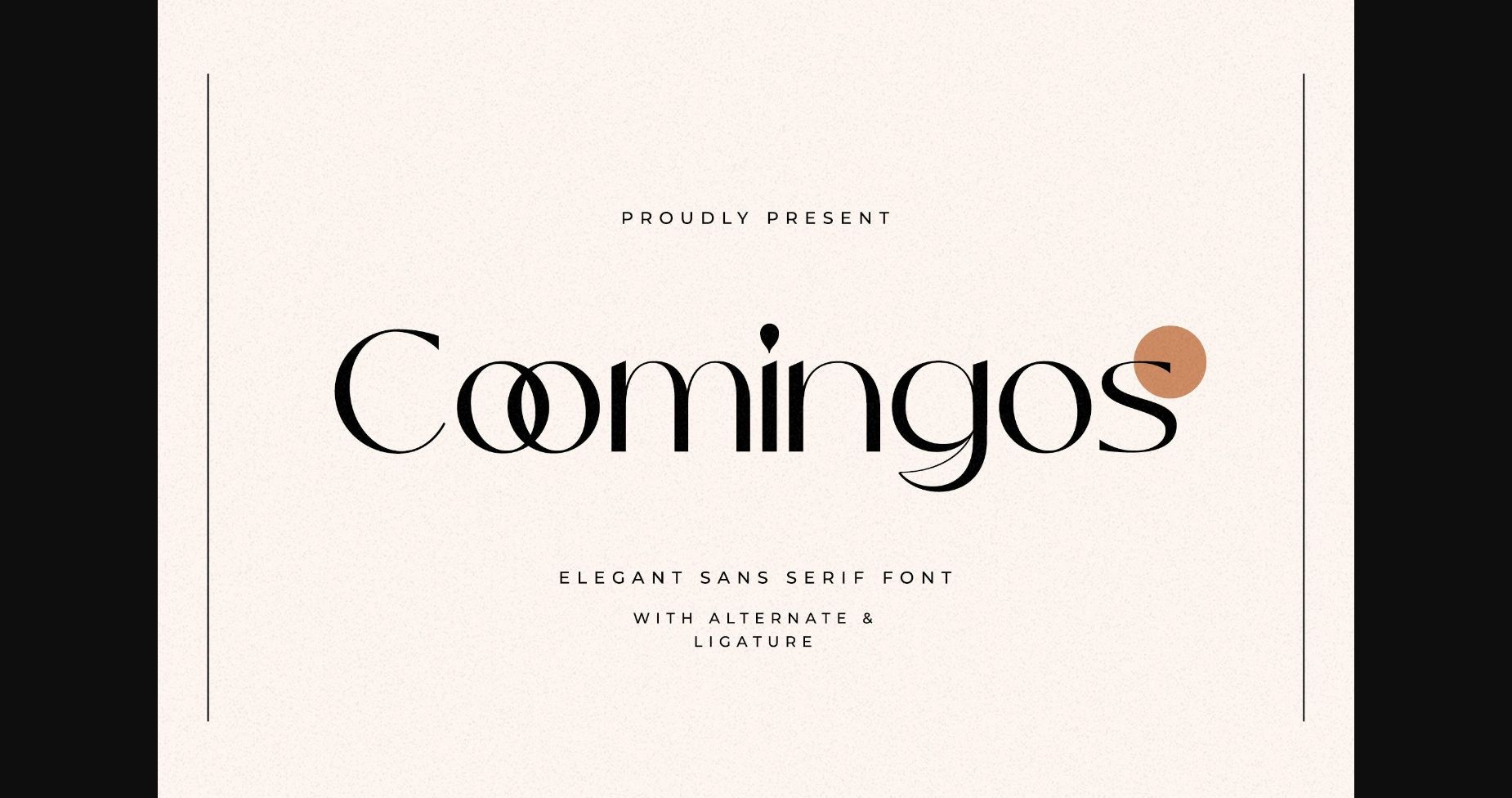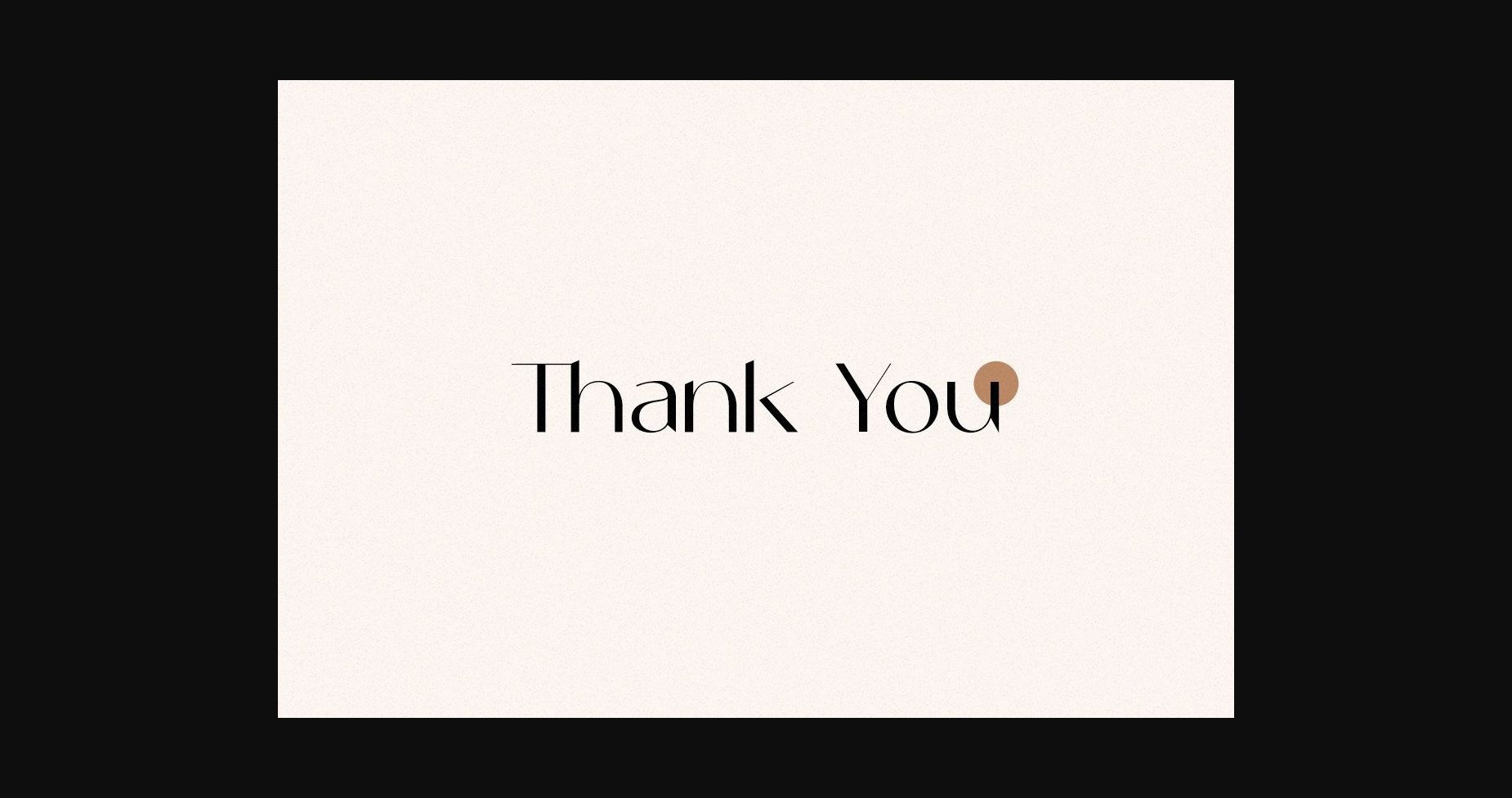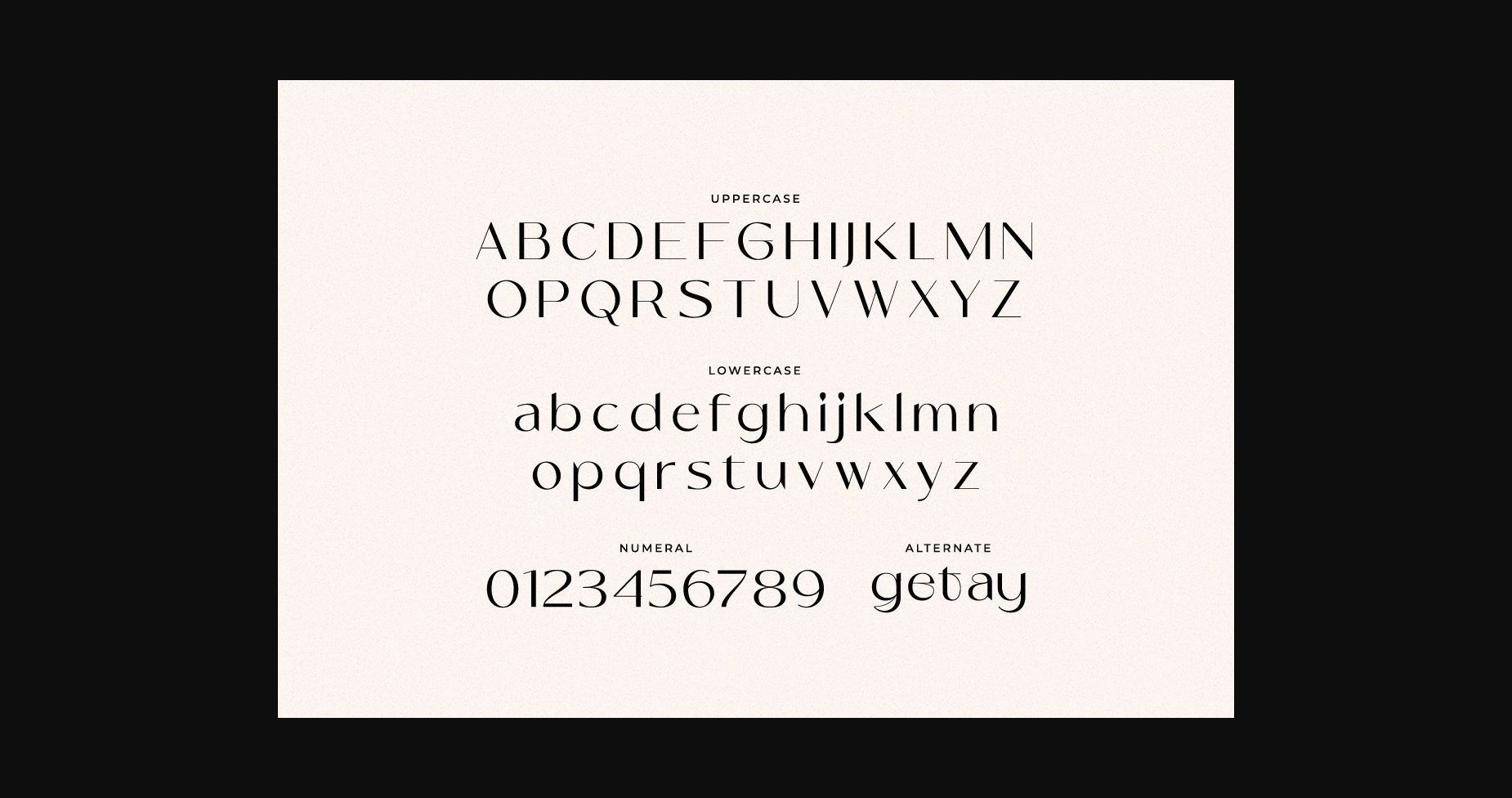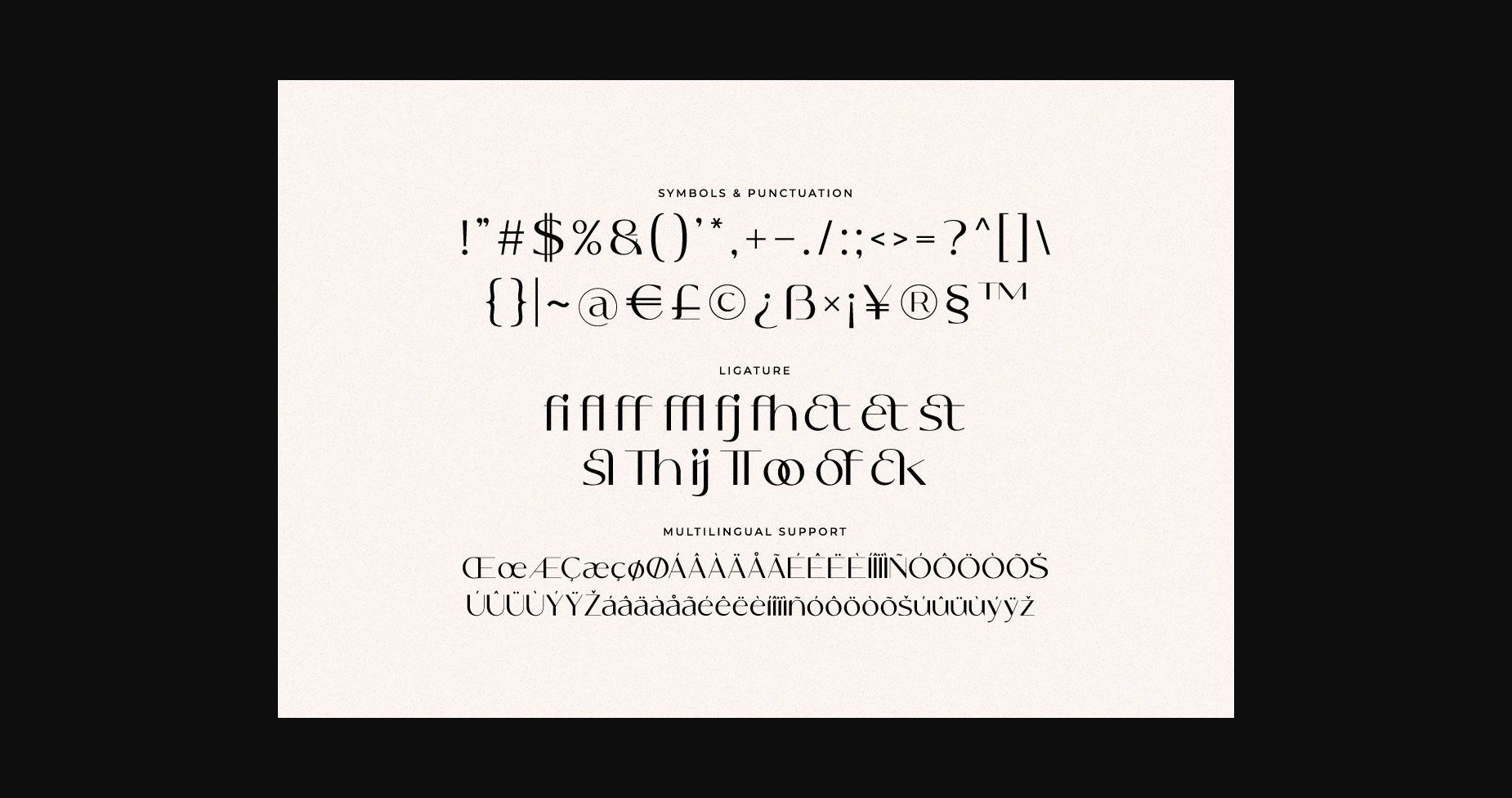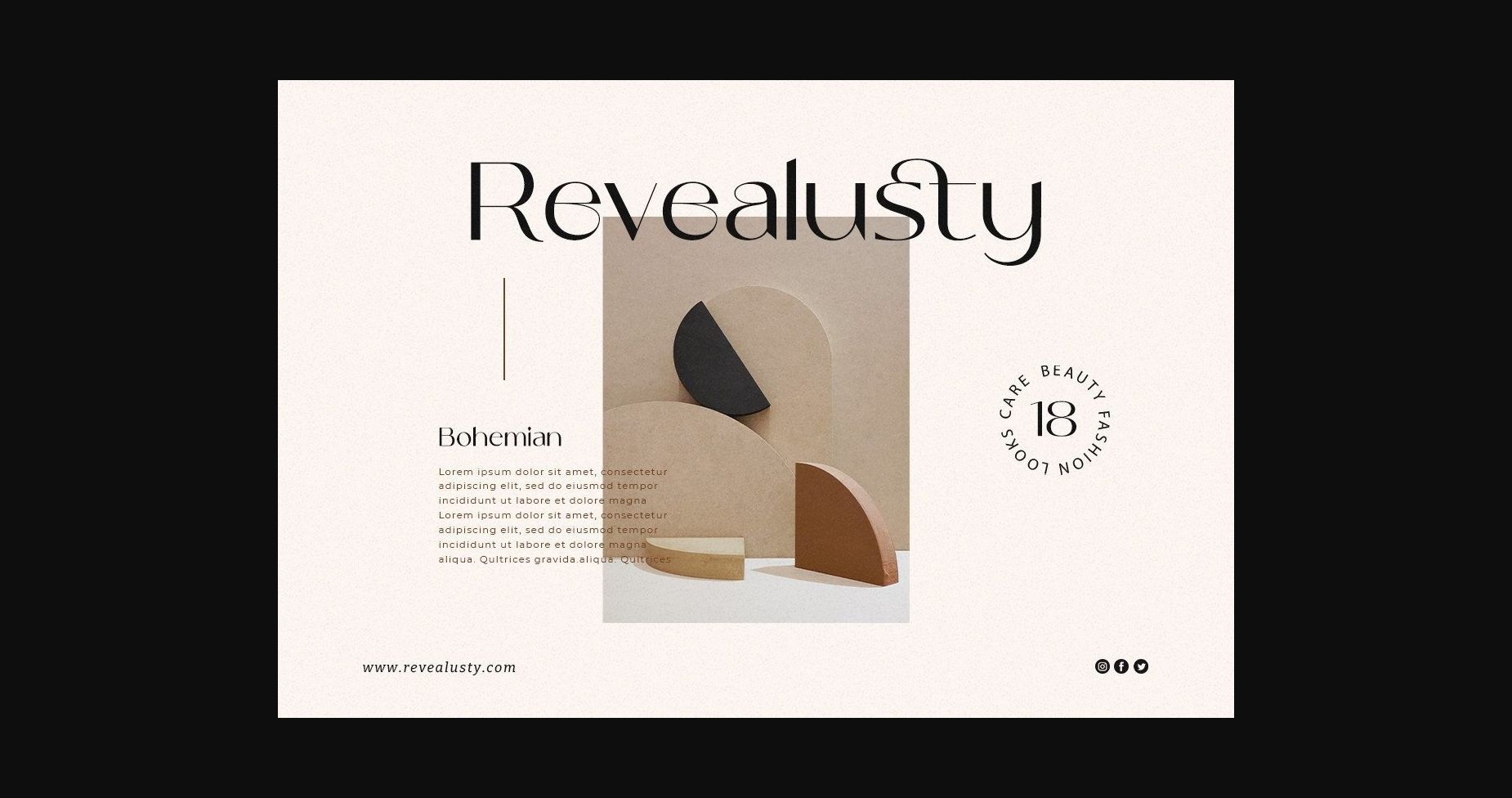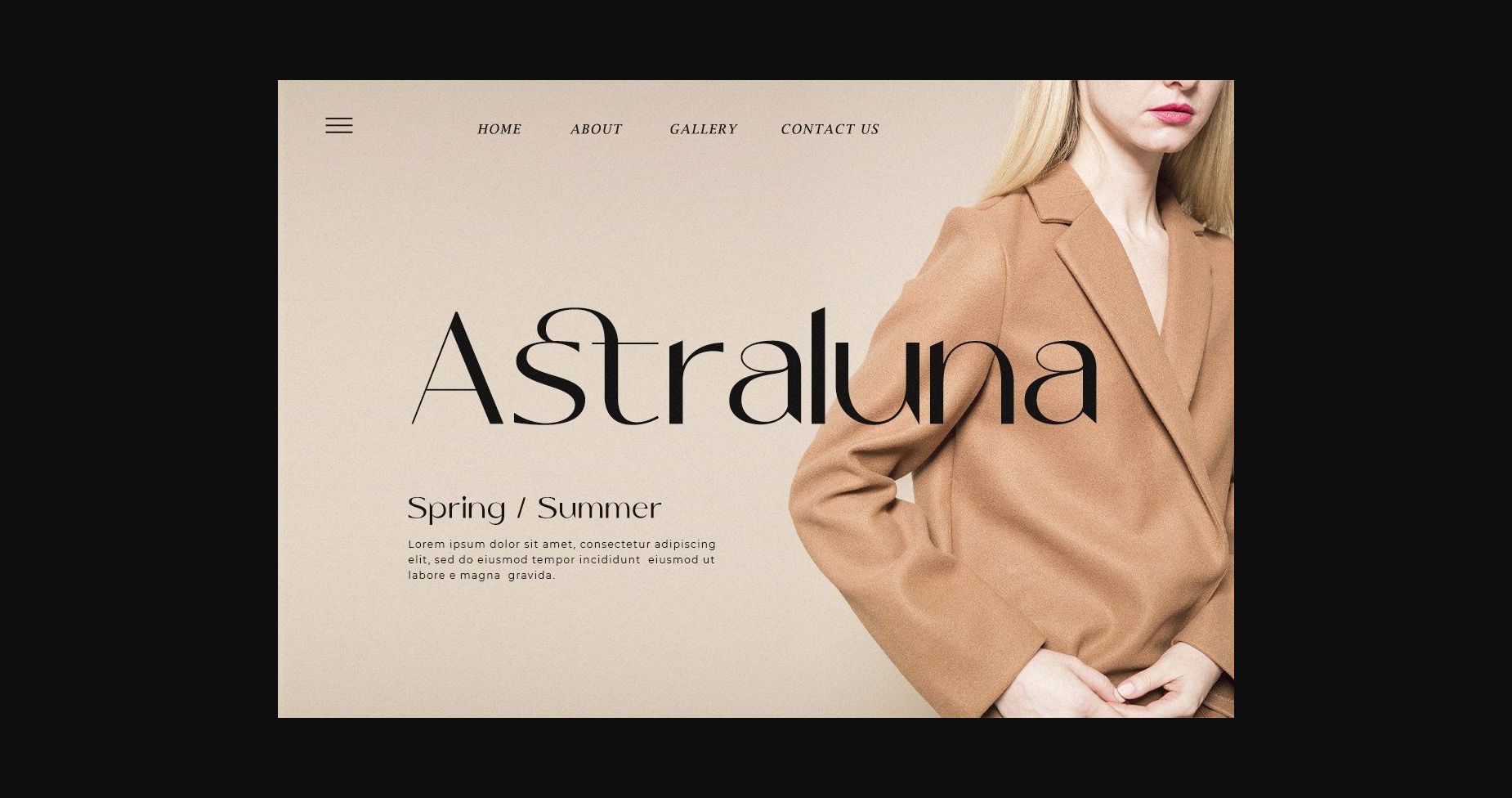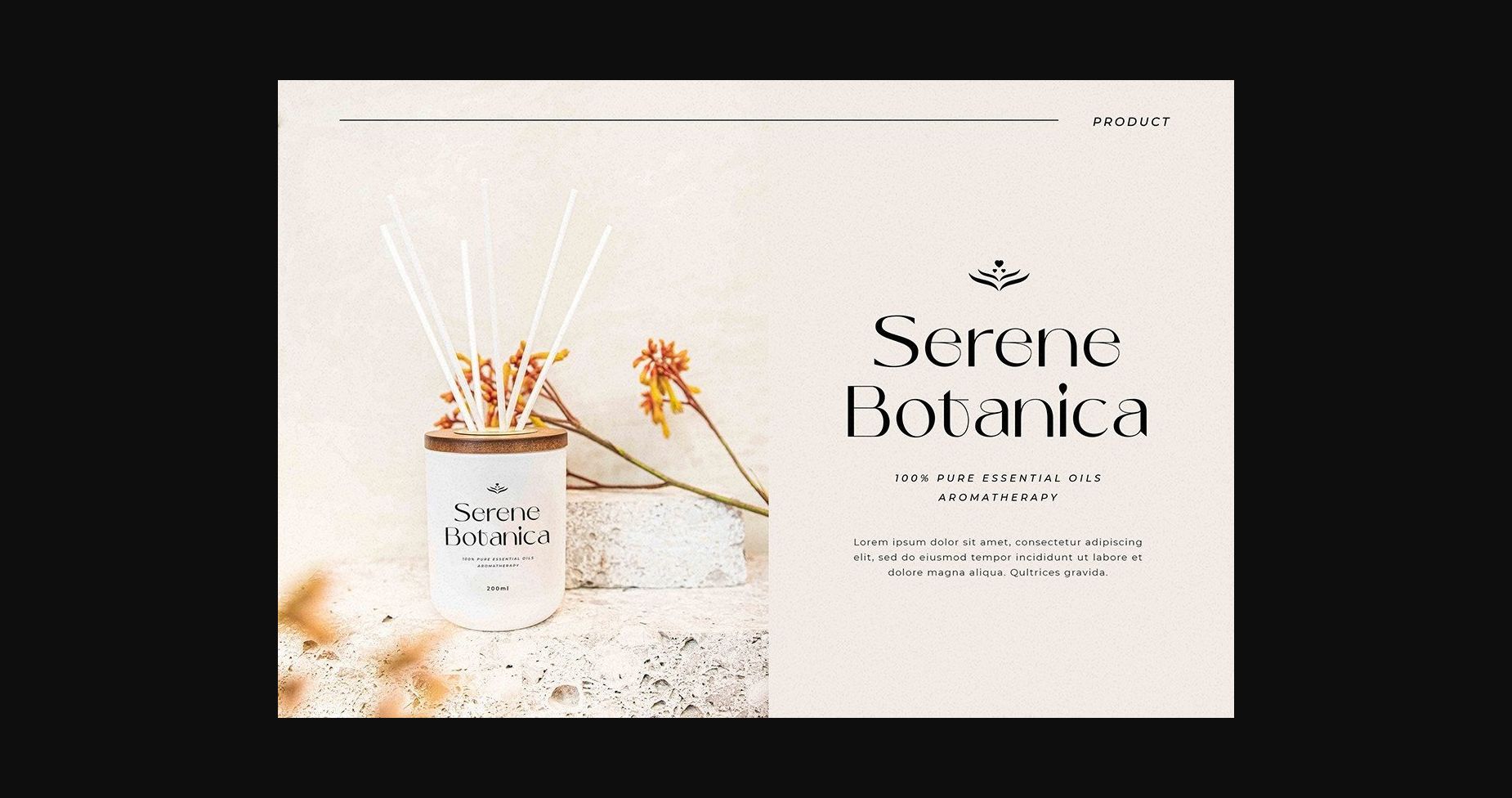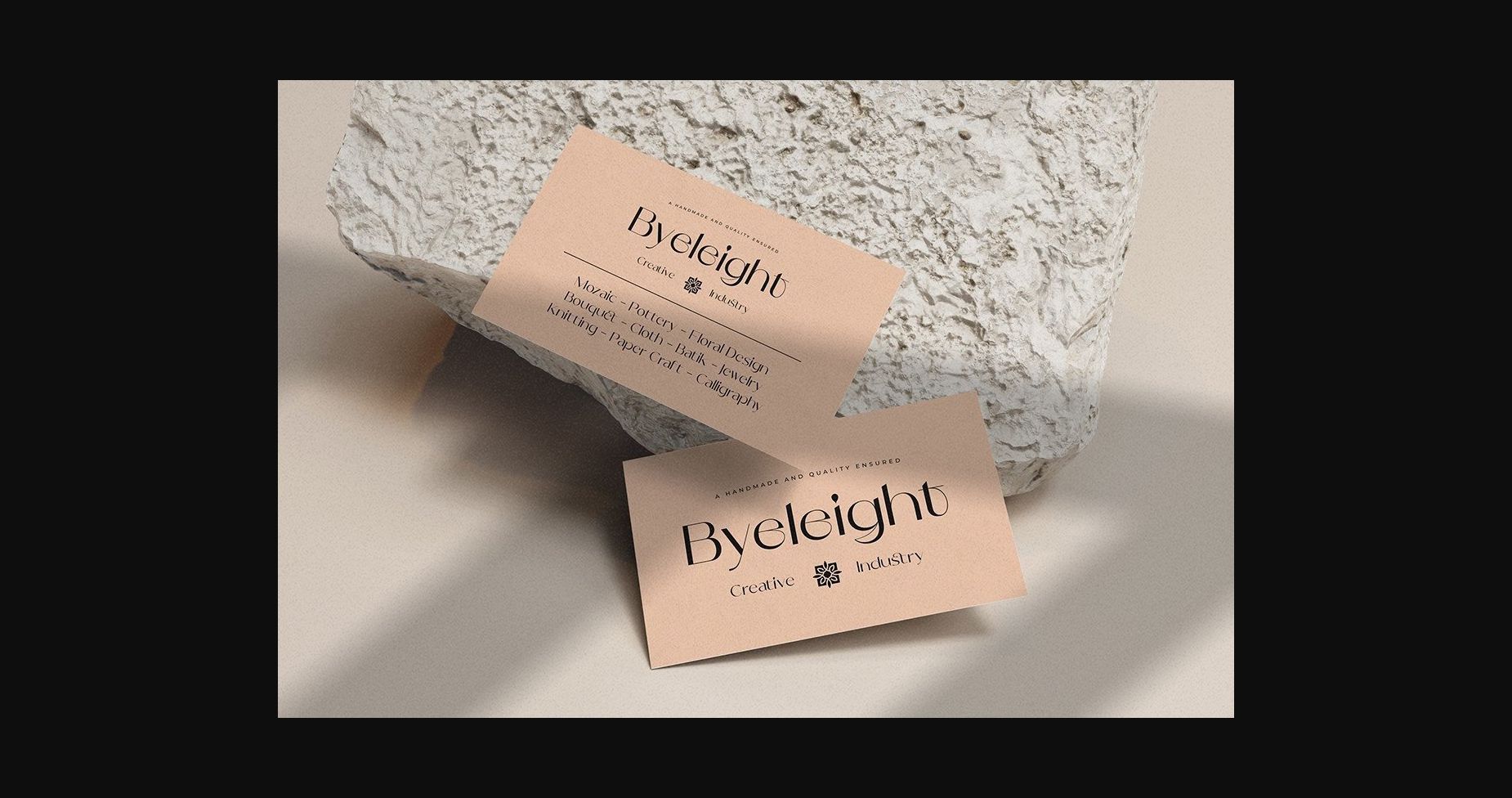
About Coomingos Font
Coomingos is an elegant and modern sans serif font.
No matter the topic, this font will be an incredible asset to your fonts library, as it has the potential to elevate any creation.